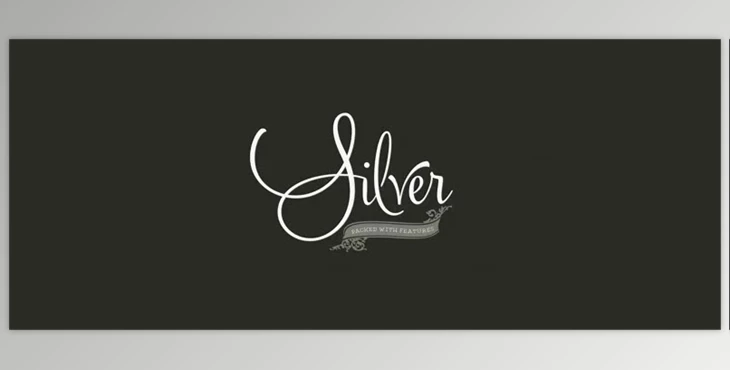
The Silver Font Family is a sophisticated yet legible connected script that is aesthetically pleasing and offers over 1,000 glyphs to customize your font selection. With Swash, Stylistic, or Titling Alternates (or manual Glyph Palette selection) and Standard Ligatures (which should be left on for clean legibility) available, you can find the perfect details for your headline or article. Whether for an article, logo, or poster, this font family renders a professional quality and works best for more information in packaging and branding.
There is a Silver Regular and Black Script selection (family scripts) and an ornament selection as well to ensure a consistent type family. The entire family should be purchased as a package for the best deal.